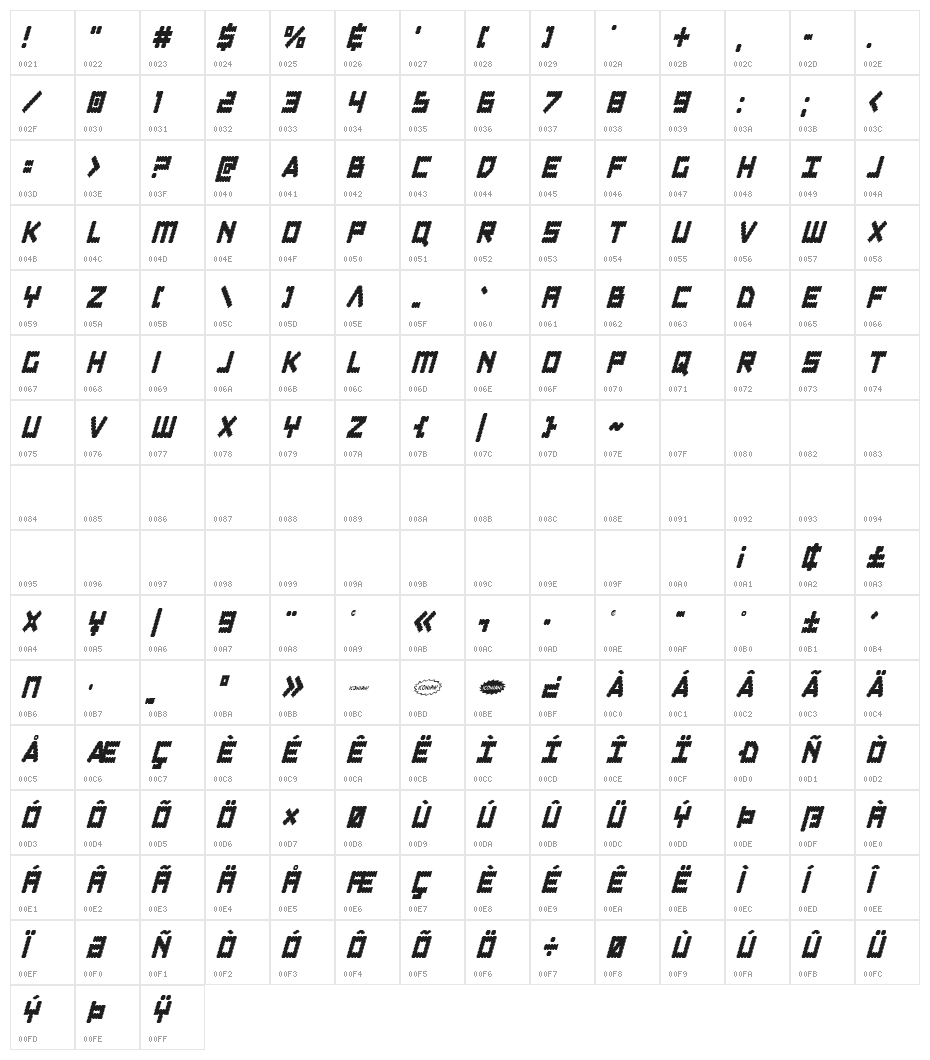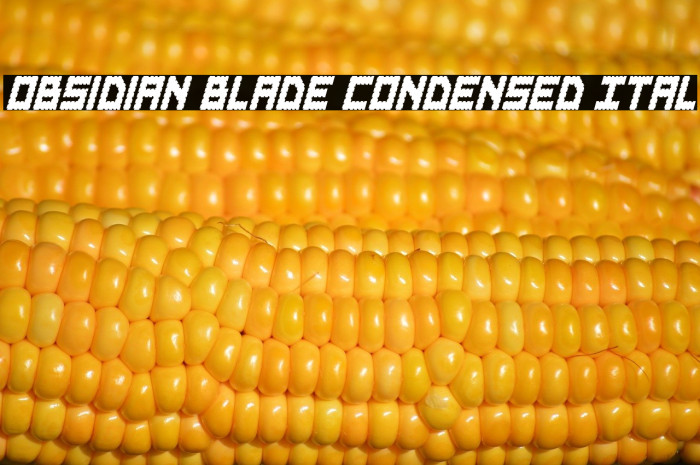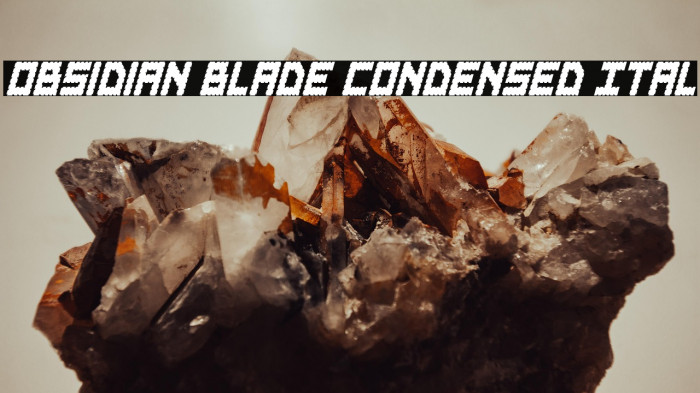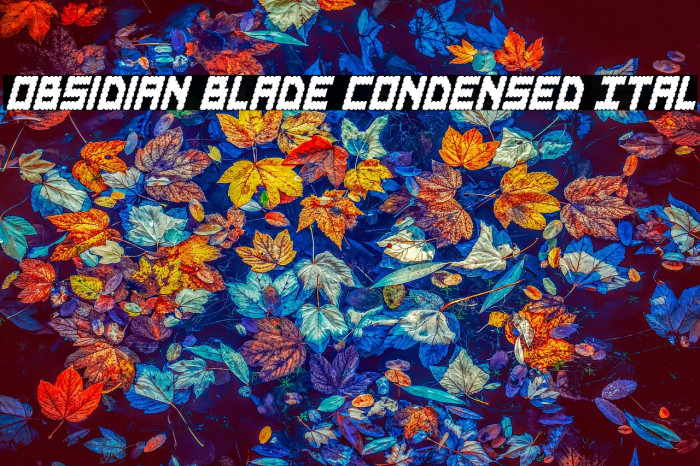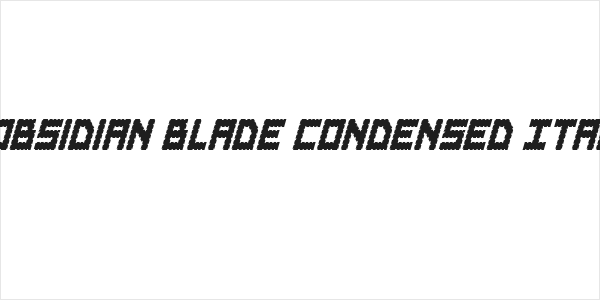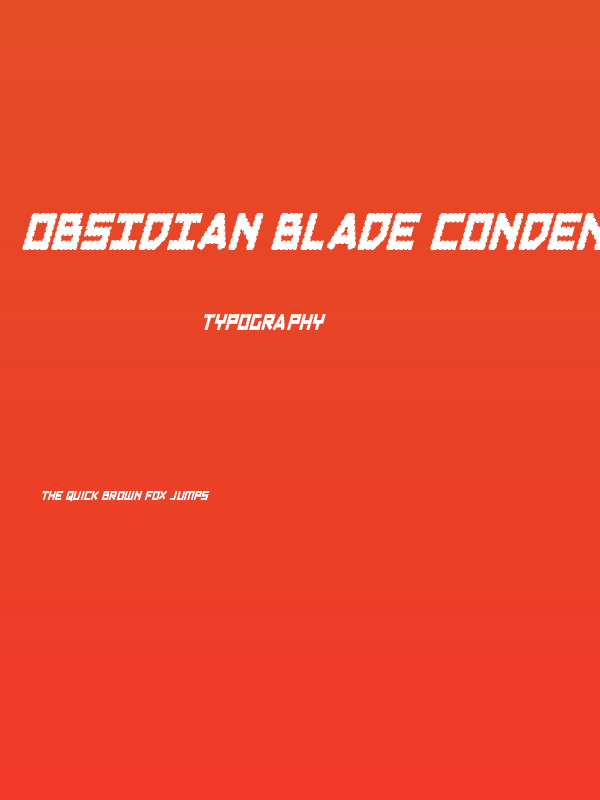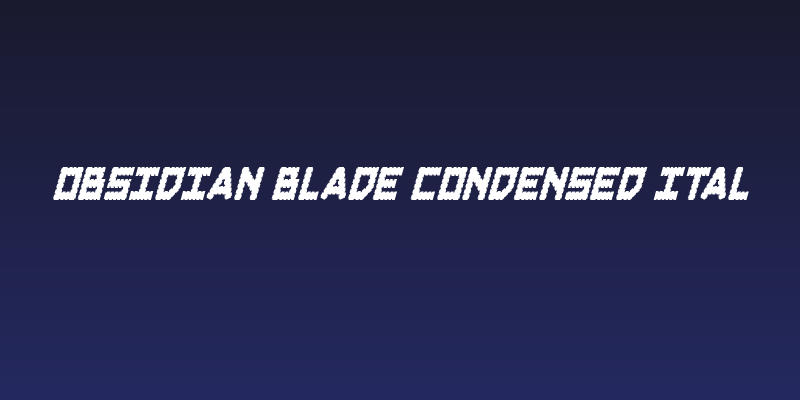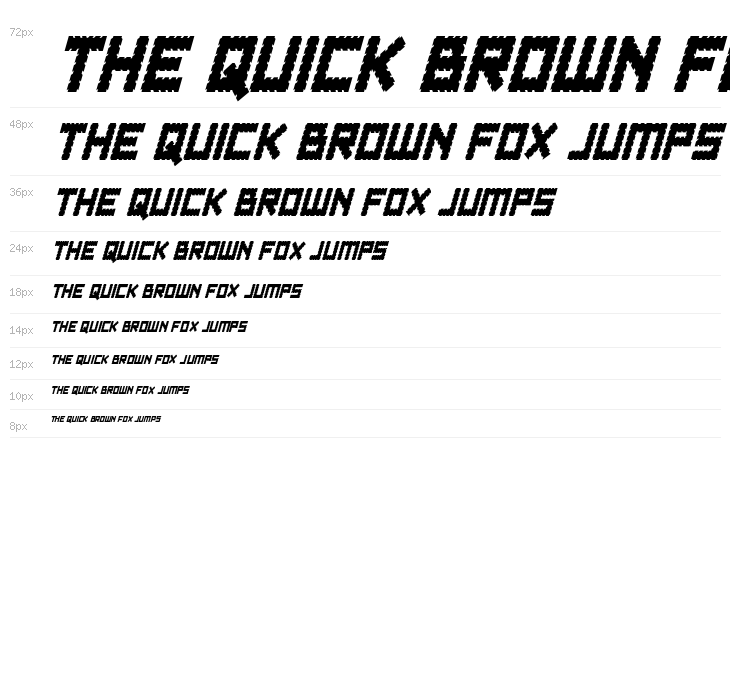
Obsidian Blade Condensed Ital Font
Obsidian Blade Condensed Ital Description
This font features a bold and dynamic design with a jagged, angular style that gives it a sharp, edgy appearance. The characters are condensed and italicized, creating a sense of movement and urgency. The strokes are thick and consistent, with a high contrast between the solid black forms and the negative space. This font's unique, aggressive look makes it stand out, making it ideal for attention-grabbing headlines or impactful graphic design projects. The uppercase and lowercase letters maintain a cohesive style, while the numerals and special characters complement the overall aesthetic.
| Overall Style | Modern, Edgy |
| Proposed Projects | Ideal for posters, logos, video game graphics, and any project requiring a bold, dynamic look. |